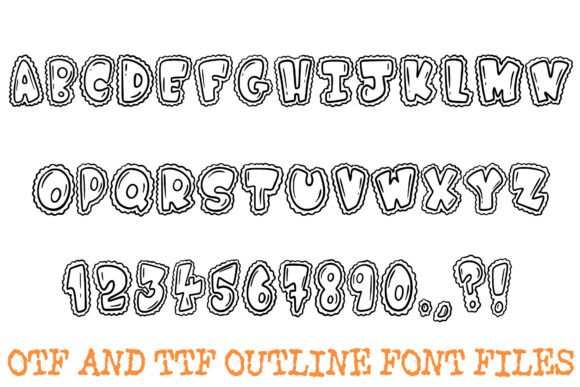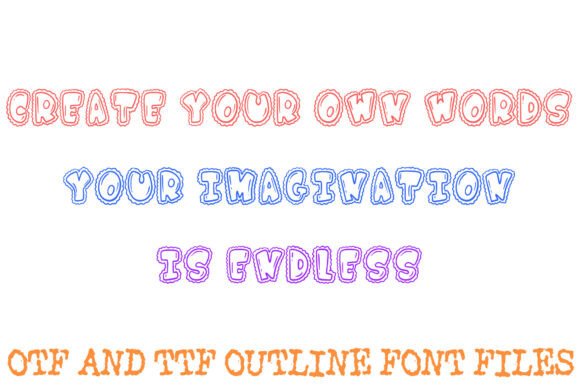
Add a Dreamy, Soft Touch to Your Designs with the Fluffy Cloud Decorative Font
Are you looking for a font that can add a touch of whimsy and coziness to your designs? Look no further than the Fluffy Cloud Decorative Font! This hand-drawn display alphabet is perfect for designers and crafters who want to create dreamy, soft, and playful designs that capture the imagination.
The Perfect Choice for Whimsical Designs
The Fluffy Cloud Font features bold, rounded characters encased in a charming, wavy border that mimics the soft silhouette of a cloud. This unique design makes it the perfect choice for nursery wall art, baby shower invitations, cozy digital scrapbooking, and playful classroom resources. The scalloped outline provides a striking visual impact, giving your text a dreamy, puffy appearance without losing legibility.
Why Your Designs Will Be Dreamy with the Fluffy Cloud Decorative Font
So, what makes the Fluffy Cloud Font so special? Here are just a few reasons why it’s the perfect addition to your design toolkit:
- Charming Wavy Borders: Each character is framed by a unique, hand-drawn scalloped border that provides a soft, layered look. This border adds a touch of whimsy and playfulness to your designs, making them perfect for projects that require a dreamy, ethereal feel.
- Bold Inflated Letterforms: The thick, rounded block style ensures that your message remains readable even with the detailed outer textures. This makes the Fluffy Cloud Font perfect for designs that require a clear and concise message, such as signs, invitations, and headings.
- Versatility: The Fluffy Cloud Font is incredibly versatile, making it perfect for a wide range of design projects. Whether you’re creating a “sweet dreams” sign or designing stickers for a digital planner, this font adds a perfect touch of whimsy and cozy charm to your text.
The Fluffy Cloud Font is perfect for designers and crafters who want to add a touch of personality to their designs. Whether you’re creating digital products, such as printable art, planners, and stickers, or physical products, such as signs, invitations, and scrapbook pages, this font is sure to delight.
Some popular uses for the Fluffy Cloud Font include:
- Nursery wall art and decor
- Baby shower invitations and decorations
- Cozy digital scrapbooking and photo albums
- Playful classroom resources and decorations
- Digital planners and stickers
Tips for Using the Fluffy Cloud Font
Here are a few tips for getting the most out of the Fluffy Cloud Font:
- Use it as a statement piece: The Fluffy Cloud Font is perfect for making a statement in your designs. Use it as a heading or title font to add a touch of whimsy and personality to your project.
- Pair it with complementary fonts: The Fluffy Cloud Font pairs perfectly with clean, simple fonts that provide a nice contrast to its playful, cursive style. Try pairing it with a font like Arial, Helvetica, or Open Sans.
- Experiment with colors and textures: The Fluffy Cloud Font looks great in a variety of colors and textures. Try experimenting with soft pastels, whites, and creams to add a touch of coziness to your designs.
The Fluffy Cloud Decorative Font is a versatile and playful font that’s perfect for designers and crafters who want to add a touch of whimsy and coziness to their designs. With its charming wavy borders, bold inflated letterforms, and versatility, this font is sure to delight. Whether you’re creating nursery wall art, baby shower invitations, or digital planners, the Fluffy Cloud Font is the perfect choice for adding a dreamy, soft touch to your designs.